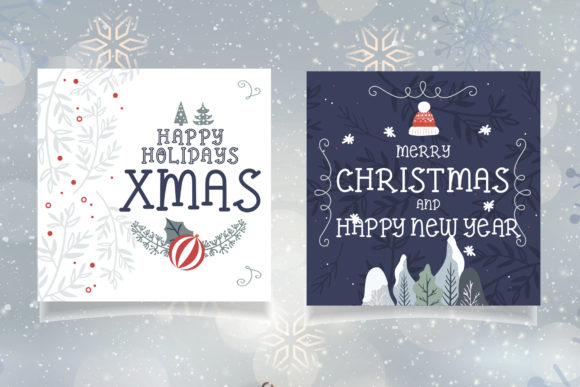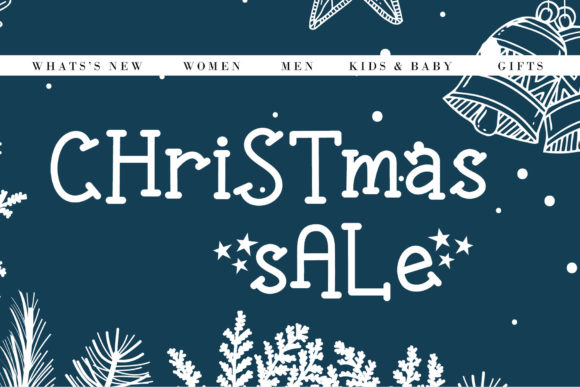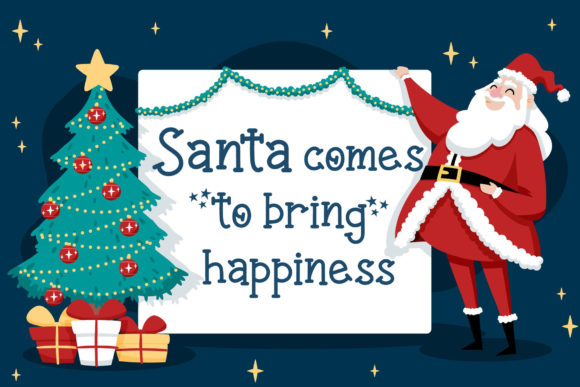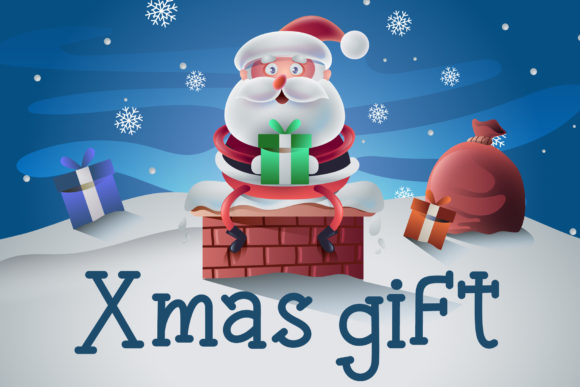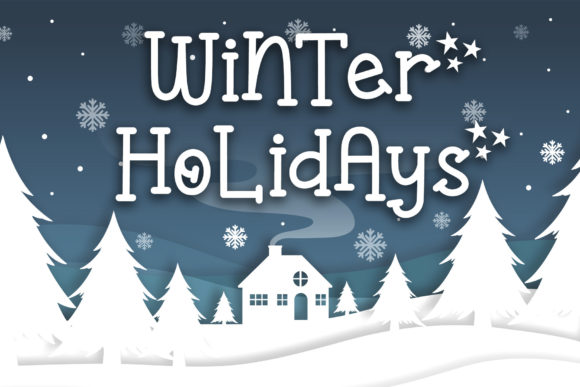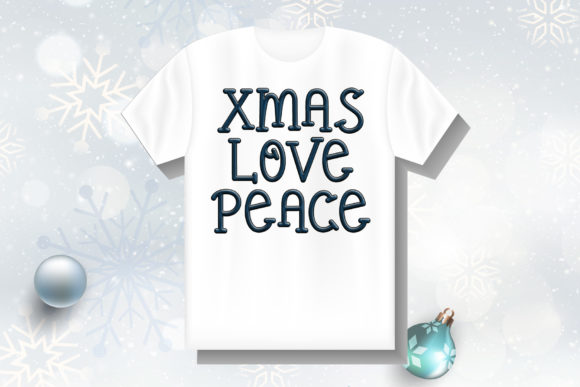
The Magic of Christmas Chic Font: A Designer’s Delight
It’s that time of the year again when the world is filled with the spirit of joy, giving, and festivity. As designers, we’re often tasked with creating stunning holiday-themed projects, from greeting cards to social media graphics. But let’s be honest, finding the perfect font can be a daunting task. I recall working on a Christmas card project last year, searching for a font that would capture the essence of the season. That’s when I stumbled upon Christmas Chic Font, and it instantly became my go-to for all things festive.
A Personal Review: What I Love About Christmas Chic Font
Christmas Chic Font is a joyful, festive, and fun slab serif font that’s ideal for holiday-themed projects. Here are some things I love about it:
- ✨ Festive and Fun: This font is designed to bring the magic of Christmas to your projects. Its playful and cheerful vibe is perfect for creating holiday cards, decorations, and more.
- ✅ PUA Encoded: Christmas Chic Font is PUA encoded, which means you can access all the glyphs and swashes with ease. This makes it simple to customize your projects and add a personal touch.
- 🎉 Versatile: This font is perfect for a wide range of projects, from greeting cards to crafting projects, social media graphics, and more.
While Christmas Chic Font is an amazing addition to any designer’s toolkit, there are a few things to keep in mind:
- ⚠️ Limited Use Outside of Holiday Season: Let’s face it, this font is designed specifically for the holiday season. While it could work for other projects, it might not be the best fit for non-holiday-themed designs.
- 🤔 Some Swashes May Not Work Well in All Contexts: While the PUA encoding makes it easy to access glyphs and swashes, some of these decorative elements might not work well in all contexts. A little experimentation may be required to get the desired effect.
Christmas Chic Font was designed with the holiday season in mind. The designer wanted to create a font that would capture the essence of Christmas and make it easy for designers to create stunning holiday-themed projects. With its playful and cheerful vibe, Christmas Chic Font is sure to become a favorite among designers.
| What is Christmas Chic Font? | Christmas Chic Font is a joyful, festive, and fun slab serif font that’s ideal for holiday-themed projects. |
| Is Christmas Chic Font PUA encoded? | Yes, Christmas Chic Font is PUA encoded, which makes it easy to access glyphs and swashes. |